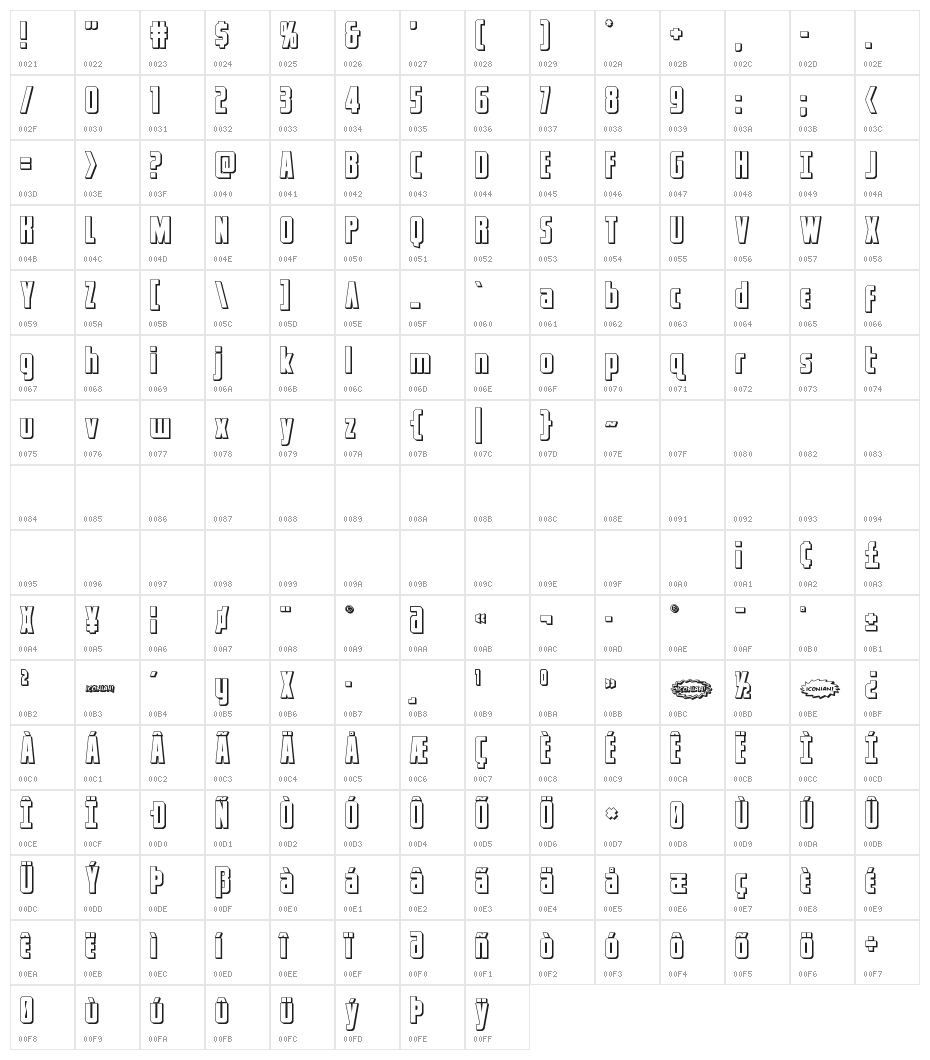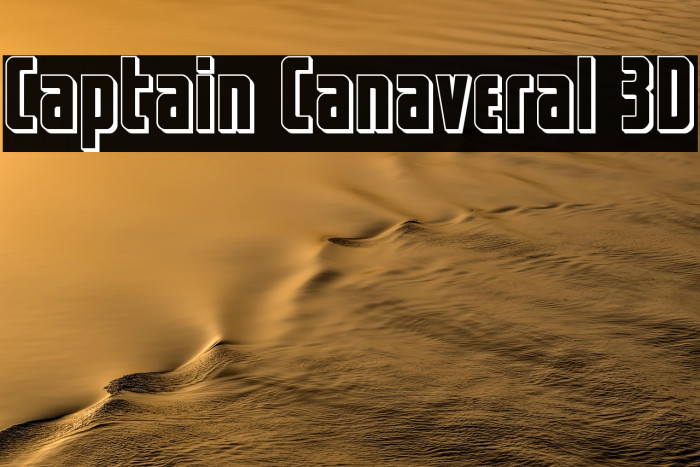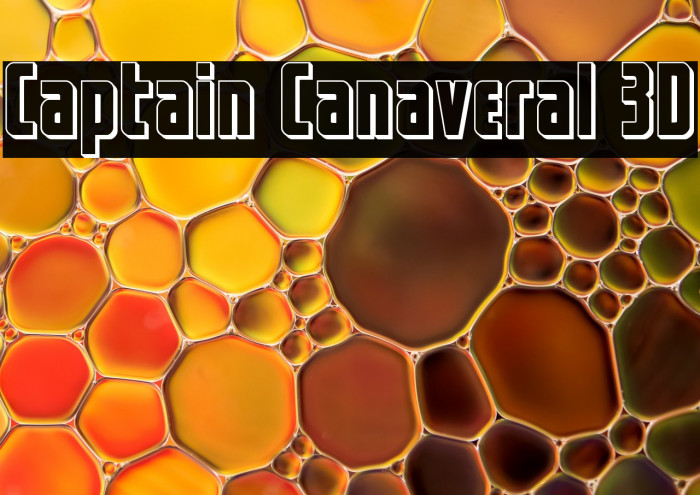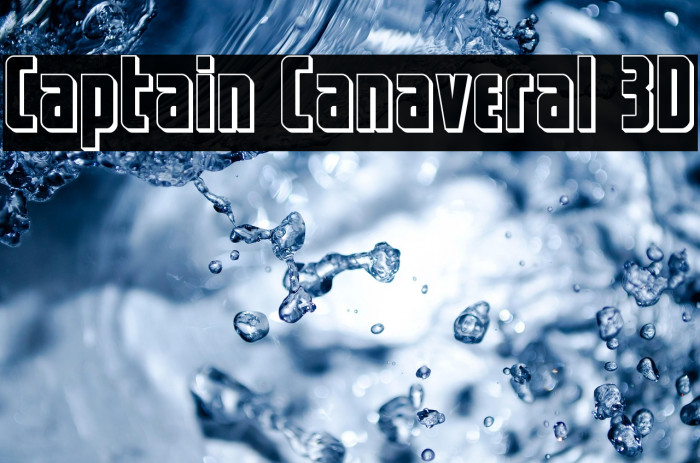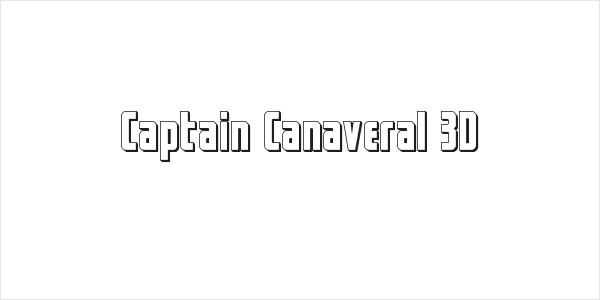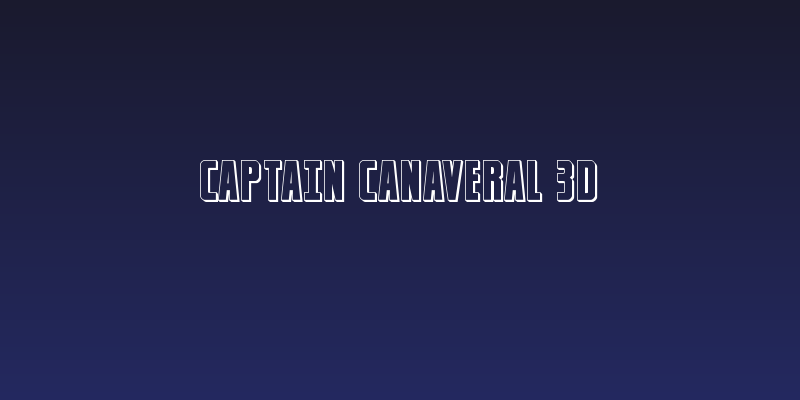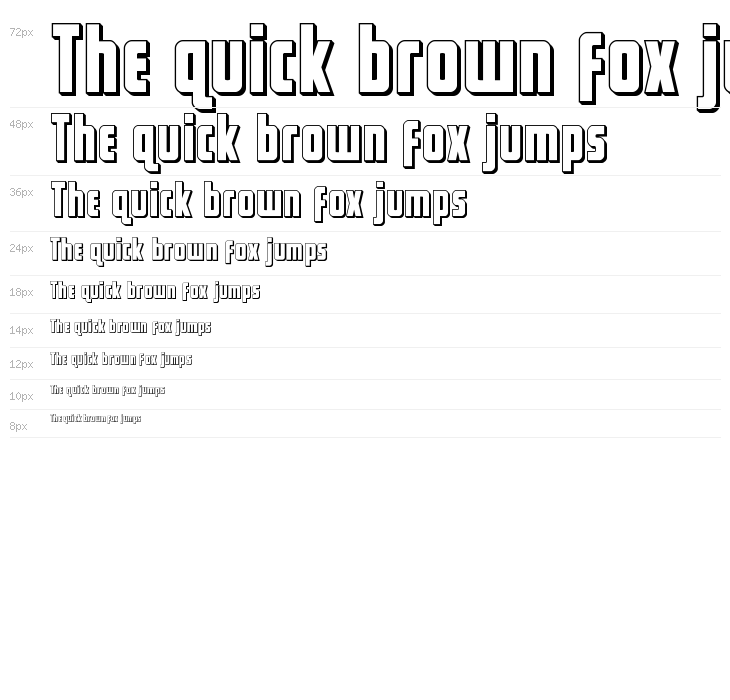
Captain Canaveral 3D Font
Captain Canaveral 3D Description
This font features a bold, three-dimensional appearance with a strong, impactful presence. The letters are outlined with a thick black border, giving them a shadowed effect that enhances their depth. The uppercase and lowercase characters maintain a consistent style, with sharp angles and clean lines that contribute to a modern and futuristic aesthetic. The numerals and special characters follow the same design principles, ensuring uniformity across the entire typeface. This font is ideal for projects that require a striking and attention-grabbing look, such as posters, headlines, and branding materials.